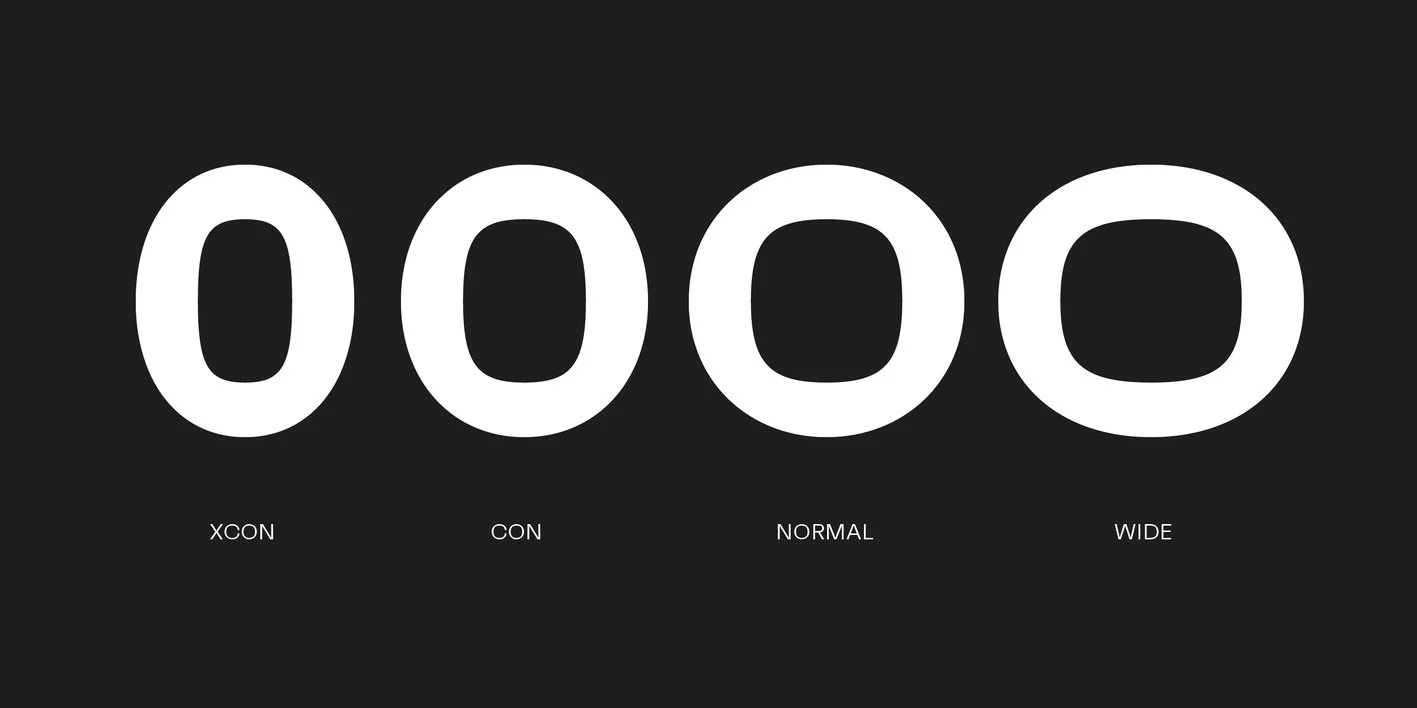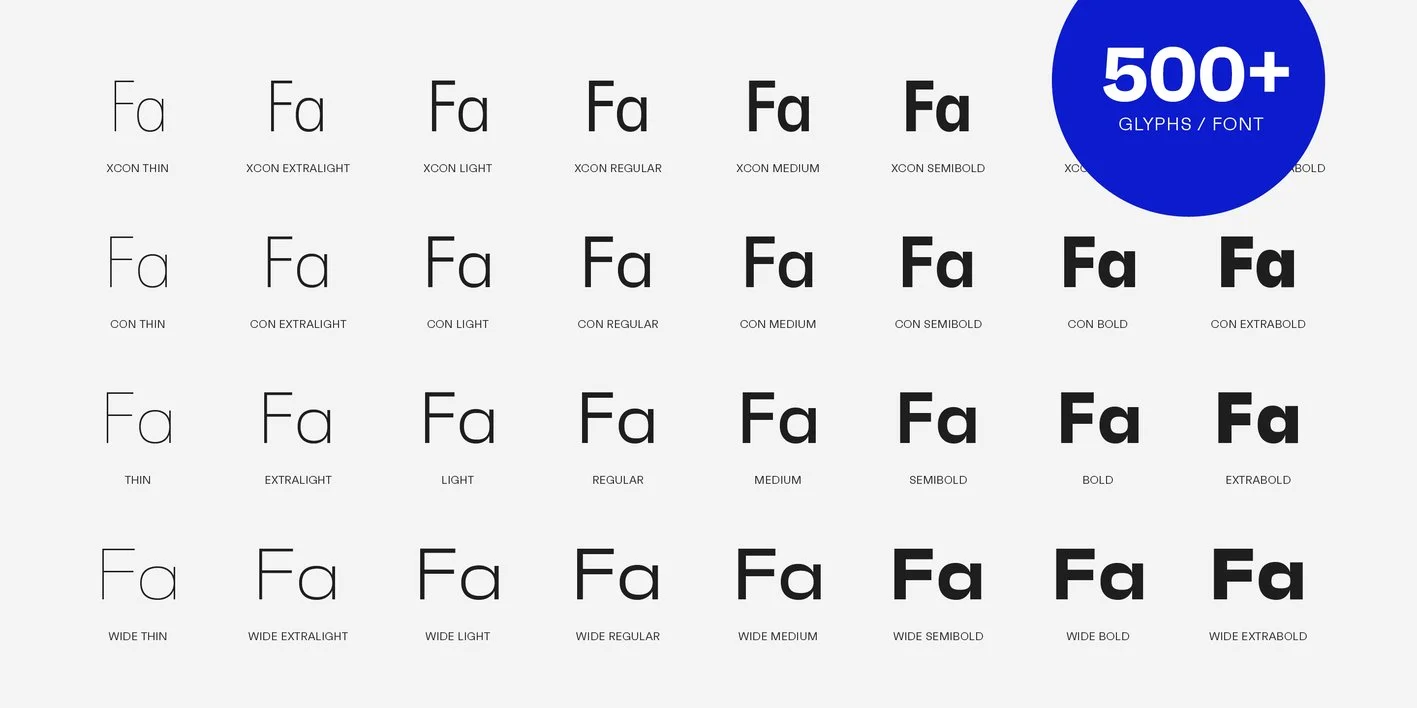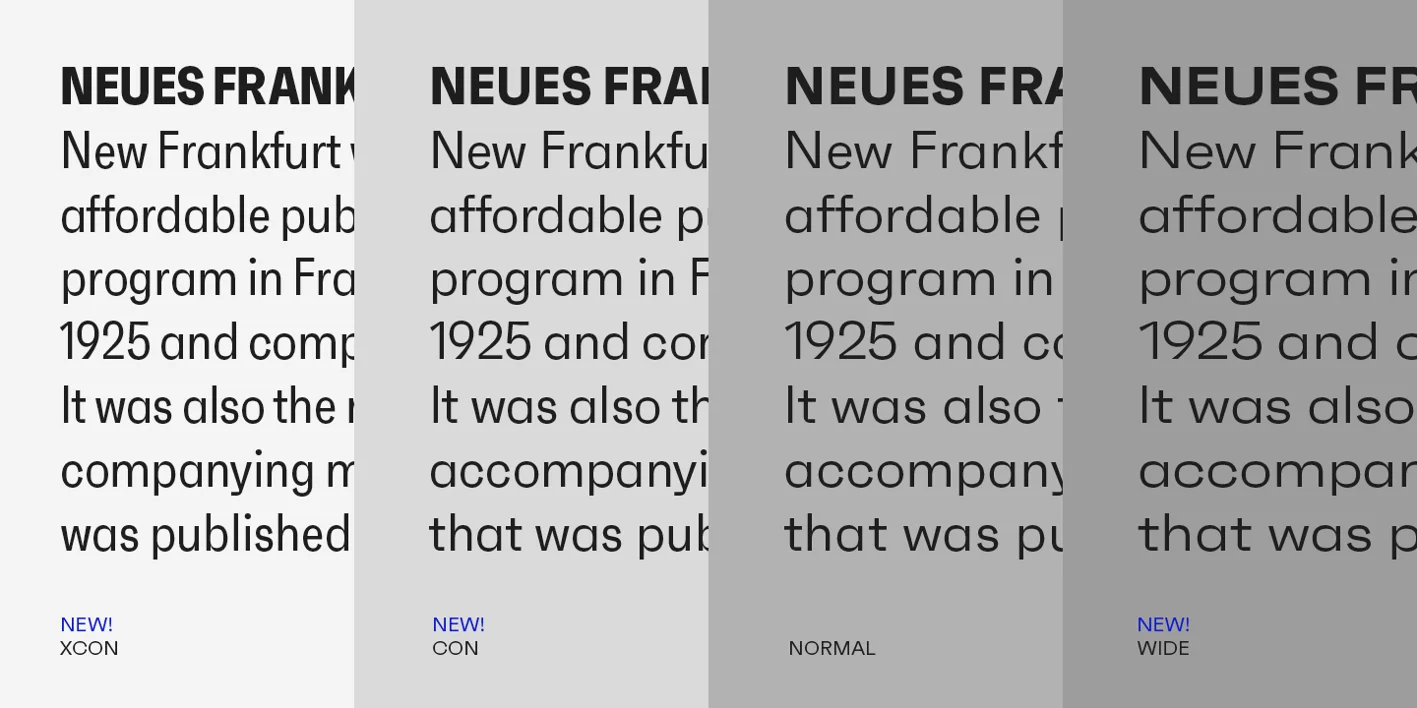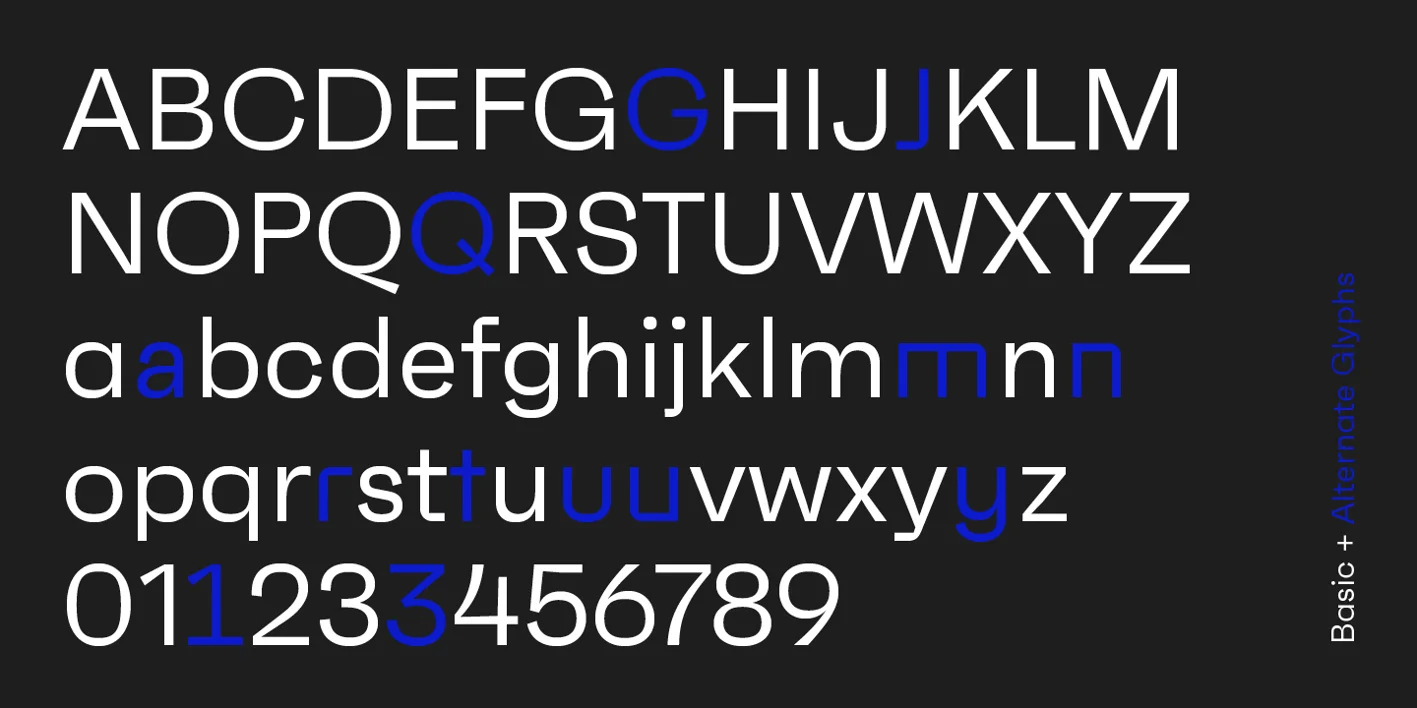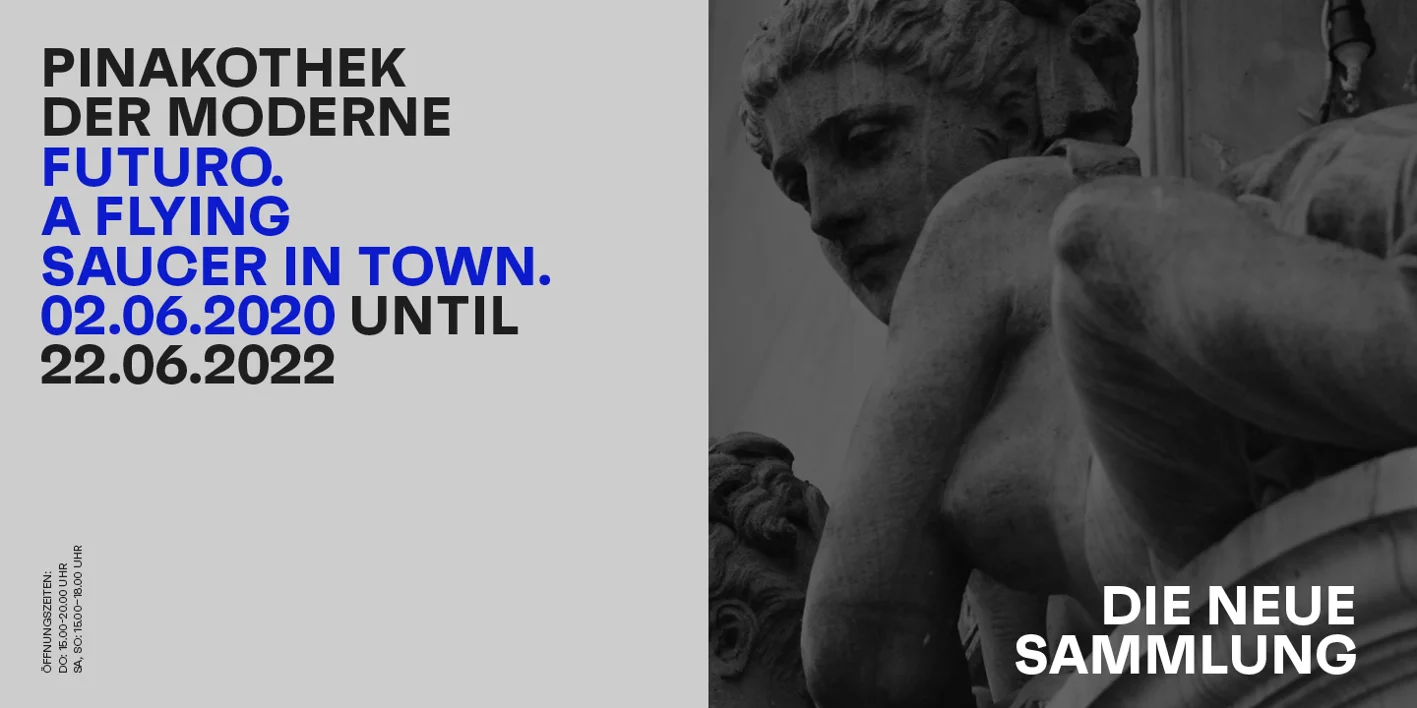
Faktum Font
When a design brief calls for both a confident voice that adapts to diverse briefs and immediate visual impact, type choices matter — Faktum answers that brief. The typeface brings a versatile sensibility to a broad range of creative disciplines, with versatility across print and screen contexts that holds up whether the work is print-first or screen-first.
In practice, Faktum proves particularly effective for web design, editorial layouts, signage systems, advertising campaigns, packaging design. Designers reaching for it find that the type decisions feel resolved rather than laboured — a useful quality when client timelines are tight.
Spacing and kerning pairs have been individually reviewed for the most common letter combinations in English and major European languages. The result is even type colour across continuous text, with no awkward gaps or collisions between adjacent characters.
The range of applications extends to annual reports, logo design, poster creation, social media graphics. That breadth is deliberate: the proportions and spacing were stress-tested across a wide range of mock briefs before the typeface was finalised.
Pairing Faktum with a contrasting serif or a neutral grotesque gives mixed-format layouts a clear visual grammar without requiring constant size adjustments to establish hierarchy.
Independent studios handling packaging and editorial work find Faktum a reliable choice for projects that demand both personality and restraint. The design avoids the self-conscious quirkiness that dates quickly, settling instead for considered distinctiveness that holds up over time.